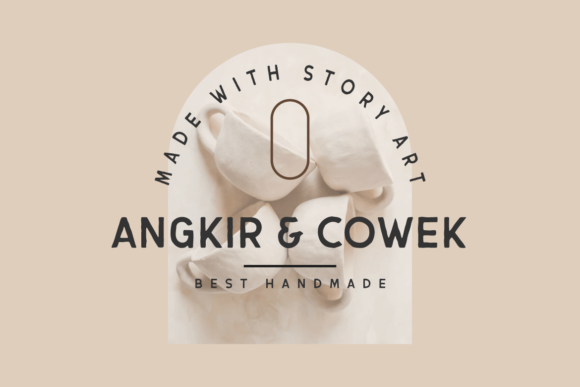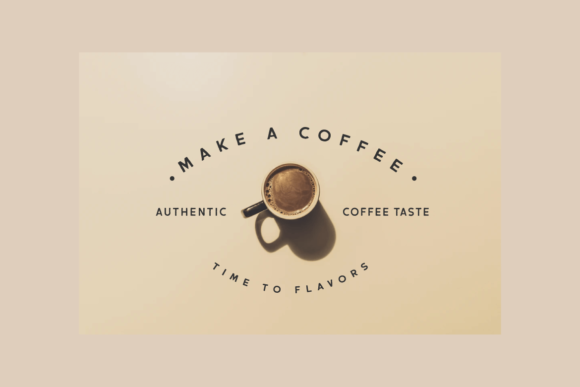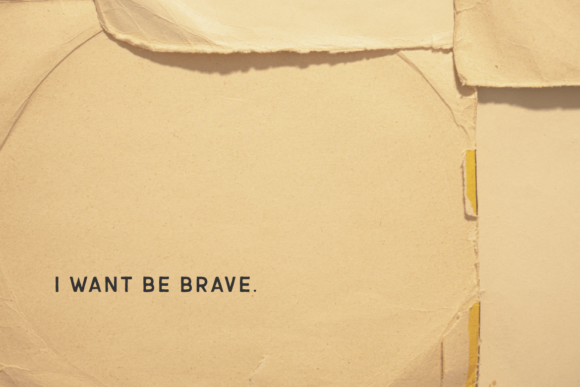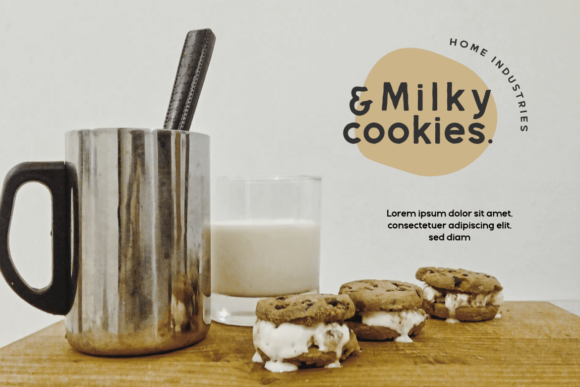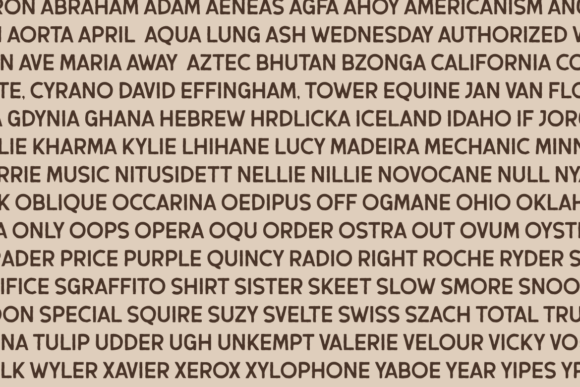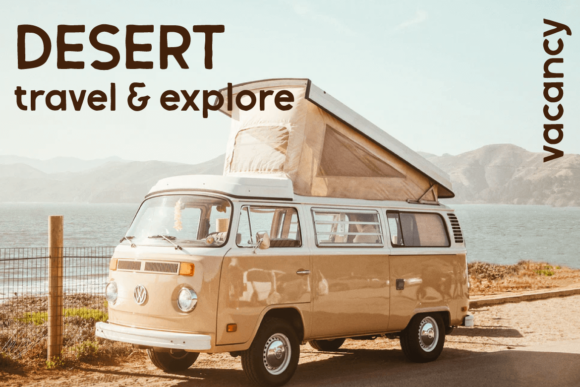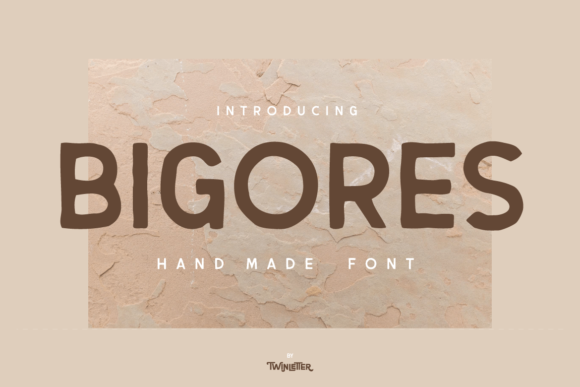
Introducing Bigores Font: Elevate Your Designs with a Bold and Vintage Flair
In the world of design, fonts play a pivotal role in bringing creativity to life. Among the myriad of typefaces available, Bigores Font stands out as a bold and vintage-styled display font that can instantly elevate your creations. Designed with precision and passion, Bigores is not just a font; it’s an experience. In this article, we’ll dive deep into the features, benefits, and uses of Bigores Font, exploring how it can make your designs look out of this world.
The Essence of Bigores Font
Bigores Font is a meticulously crafted typeface that embodies the essence of vintage style with a modern twist. Its bold appearance makes it perfect for headlines, titles, and any design element where you want to capture attention. The font’s vintage vibe adds a touch of nostalgia and elegance, making it versatile for various design projects, from branding and advertising to packaging and digital media.
Key Features of Bigores Font
- Bold and Vintage Style: Bigores boasts a bold and vintage aesthetic that can add a unique flair to your designs.
- High Versatility: Suitable for a wide range of projects, including posters, flyers, logos, and social media graphics.
- Unique Character Set: Includes a range of characters and glyphs to provide flexibility in your typography.
Bigores Font offers numerous benefits for designers and crafters looking to make their mark:
- Time-Saving: With Bigores, you can achieve professional-looking results without spending hours on custom typography.
- Consistency: The font’s uniformity ensures that your brand or project’s messaging is clear and consistent across different platforms.
- Creativity Boost: Bigores’ unique style can inspire creativity and help your designs stand out in a crowded marketplace.
How to Use Bigores Font Effectively
To maximize the impact of Bigores Font, consider the following tips:
- Pair with Complementary Fonts: Combine Bigores with simpler fonts for body text to create visual hierarchy and balance.
- Experiment with Colors and Textures: Play with different colors and textures to enhance the vintage feel of Bigores.
- Use for Headlines and Titles: Leverage Bigores’ boldness for headlines and titles to grab attention.
- Consider the Context: Ensure that Bigores aligns with the overall theme and message of your project.
Who Can Benefit from Bigores Font?
Bigores Font is a valuable asset for a wide range of professionals and enthusiasts:
- Graphic Designers: Looking for a bold and vintage font to enhance their projects.
- Marketers: Seeking to create compelling and memorable brand messaging.
- Digital Artists: Interested in adding a unique typographic element to their artwork.
- Crafters and Makers: Creating handmade products and looking for a distinctive font for labels, packaging, or promotional materials.
Bigores Font is more than just a typeface; it’s a design statement. Its bold and vintage style offers endless possibilities for creative expression. Whether you’re a professional designer or a DIY enthusiast, Bigores can help elevate your projects to new heights. With its versatility, ease of use, and unique aesthetic, Bigores Font is poised to become a staple in your design arsenal. So, why settle for ordinary when you can make your creations look out of this world with Bigores?